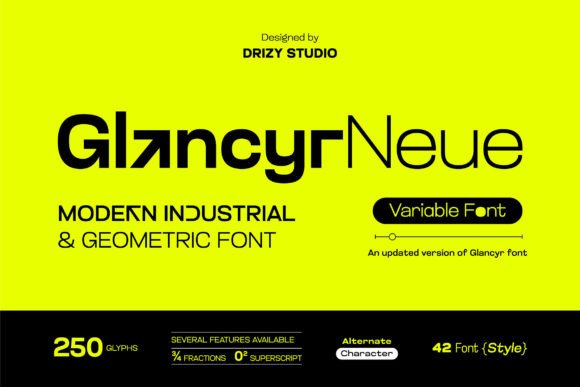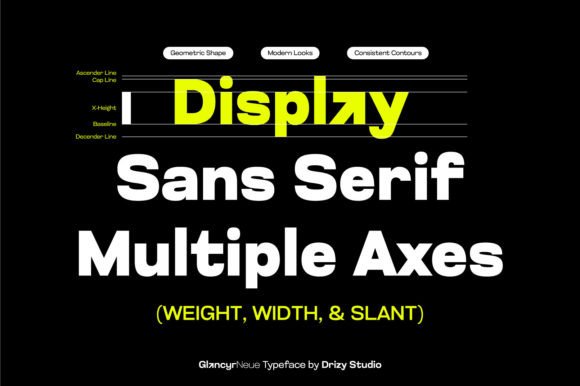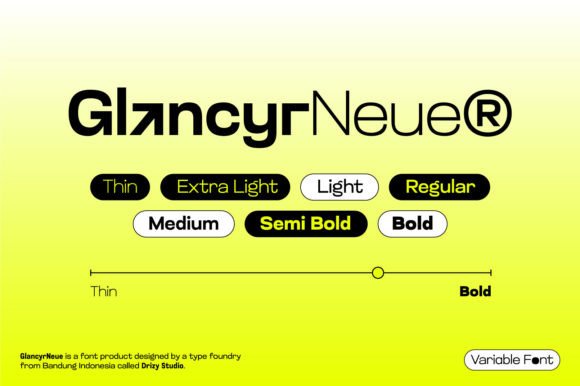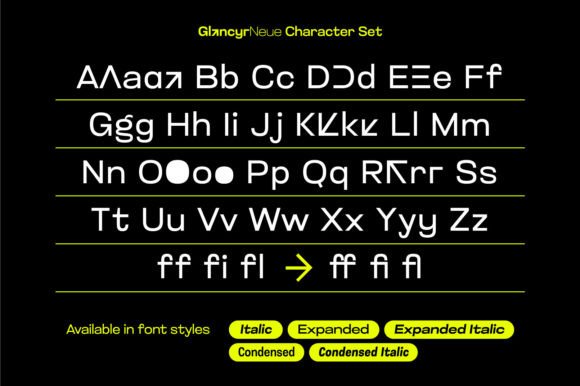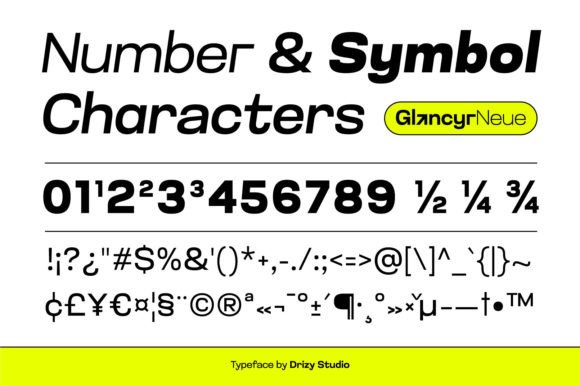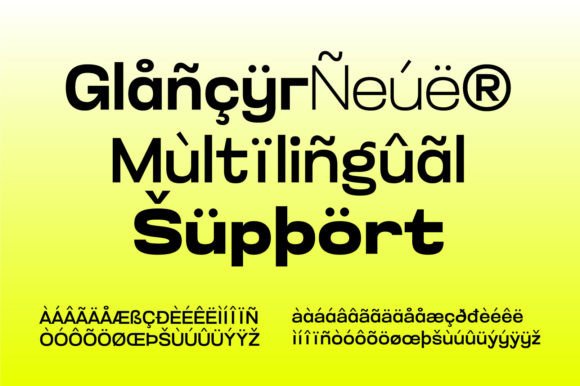
Introducing Glancyr Neue: The Ultimate Modern Geometric Industrial Font
In the world of typography, fonts play a crucial role in conveying messages, setting tones, and creating visual identities. For designers and crafters, finding the perfect font can be a daunting task, especially when looking for something that combines modern elegance with industrial strength. This is where Glancyr Neue comes into play – a sleek and versatile typeface that is revolutionizing the way we approach design.
What is Glancyr Neue?
Glancyr Neue is a modern geometric industrial font that seamlessly blends clean lines, geometric shapes, and contemporary aesthetics. This unique combination makes it an ideal choice for a wide range of design projects, from branding and advertising to packaging and digital media. Whether you’re a professional designer or a crafty DIY enthusiast, Glancyr Neue is sure to elevate your work to the next level.
Key Features of Glancyr Neue
- Clean Lines and Geometric Shapes: Glancyr Neue boasts clean lines and geometric shapes that give it a modern and industrial feel. This makes it perfect for designs that require a sleek and sophisticated look.
- Versatility: This font is incredibly versatile, making it suitable for a wide range of design projects, from logos and branding to headlines and body text.
- Contemporary Aesthetics: Glancyr Neue has a distinctly contemporary feel that will make your designs stand out in a crowded marketplace.
- Ease of Use: This font is easy to read and works well in both digital and print formats, making it a great choice for designers who need to create cohesive branding across multiple platforms.
Who is Glancyr Neue for?
Glancyr Neue is perfect for:
- Graphic Designers: Whether you’re working on a branding project, creating a logo, or designing a website, Glancyr Neue is a great choice.
- Crafters and Makers: If you’re creating your own products, such as handmade crafts, jewelry, or home decor, Glancyr Neue can add a touch of modern elegance to your packaging and marketing materials.
- Digital Artists: This font is also great for digital artists who want to add a touch of industrial chic to their work.
Benefits of Using Glancyr Neue
By choosing Glancyr Neue, you’ll enjoy a range of benefits, including:
- Unique and Memorable Designs: Glancyr Neue will help you create designs that stand out and leave a lasting impression.
- Consistency Across Platforms: This font works well in both digital and print formats, ensuring that your branding is cohesive across all platforms.
- Ease of Use: Glancyr Neue is easy to read and works well in a variety of design applications.
Glancyr Neue is a game-changing font that combines modern elegance with industrial strength. Whether you’re a designer, crafter, or digital artist, this versatile typeface is sure to elevate your work and help you create unique and memorable designs. With its clean lines, geometric shapes, and contemporary aesthetics, Glancyr Neue is the perfect choice for anyone looking to add a touch of sophistication and style to their projects.